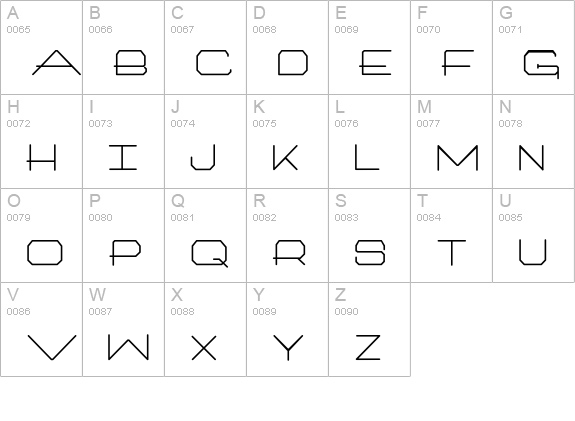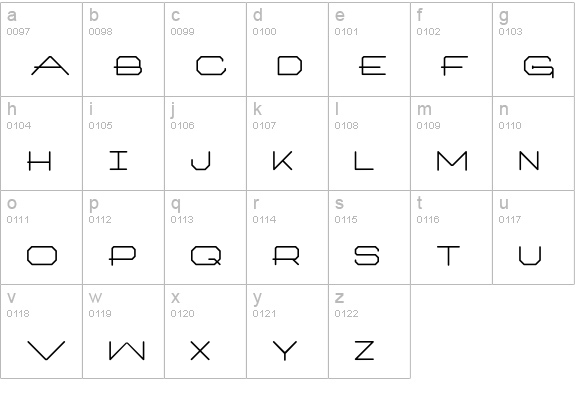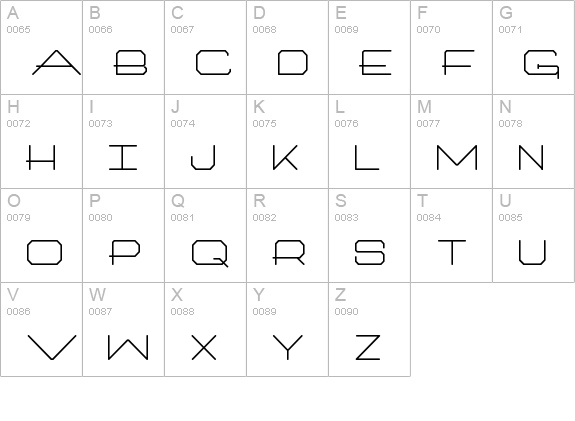
ArtlookinOneType Font Details
ArtlookinOneType font is a versatile and modern typeface that exudes creativity and elegance. With its clean lines and unique design, this font is perfect for a wide range of projects, from branding to editorial design. The sleek and stylish characters of ArtlookinOneType font will make your text stand out and catch the eye of your audience. The best part? ArtlookinOneType font is available for free download at FontsMarket.com. This means you can easily access this stunning font and use it in your projects without any cost. So why wait? Download ArtlookinOneType font today and add a touch of sophistication to your designs.